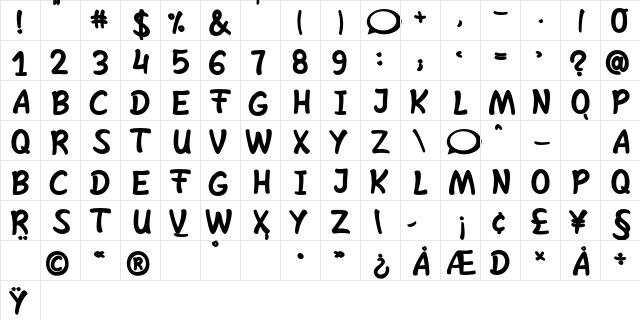
Shelta Hand* Bold Font Preview
Shelta Hand* Bold
Shelta Hand* Bold Font Details
Design Context for Shelta Hand* Typeface
Shelta Hand* flows with the natural rhythm of handwritten lettering, making it ideal for designs that call for warmth and personal expression. Its bold stroke weight gives it real presence on the page.